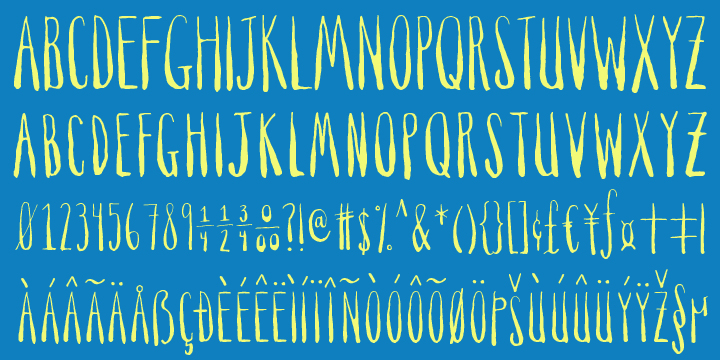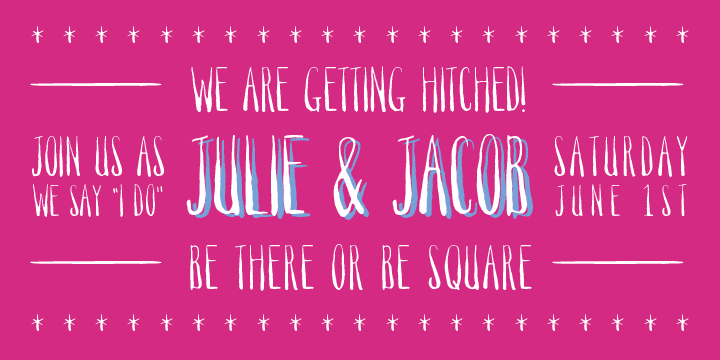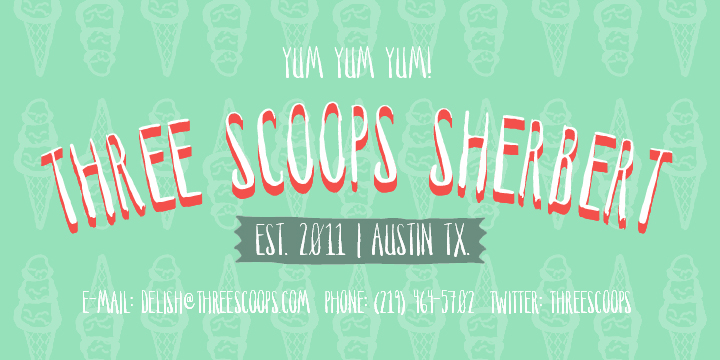
About Mignonette
Hand-drawn with calligraphy ink and an antique dip pen, Mignonette is ready for all uses charming and rustic. She\’s heavy on the bottom and hairline at the top, and includes all sorts of additional numerals, currency figures as well as multi-language…